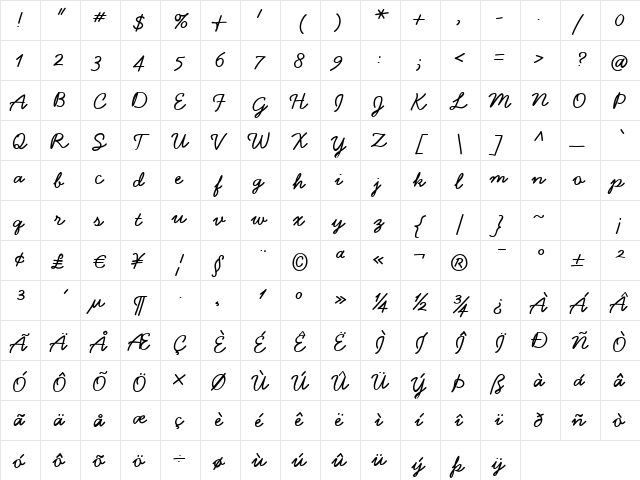
Handsome Bold Free Font
Handsome Bold
Handsome Family
Handsome Bold
Design Context for Handsome
Handsome flows with the natural rhythm of handwritten lettering, making it ideal for designs that call for warmth and personal expression. Its bold stroke weight gives it real presence on the page.
Font Pairing: Combine Handsome with a simple geometric sans for maximum contrast - the tension between flowing curves and clean structure is a classic typographic pairing.
Pro Tip: Use Handsome for short runs of text - names, titles, or taglines. Extended body copy in script faces tires the eye quickly.